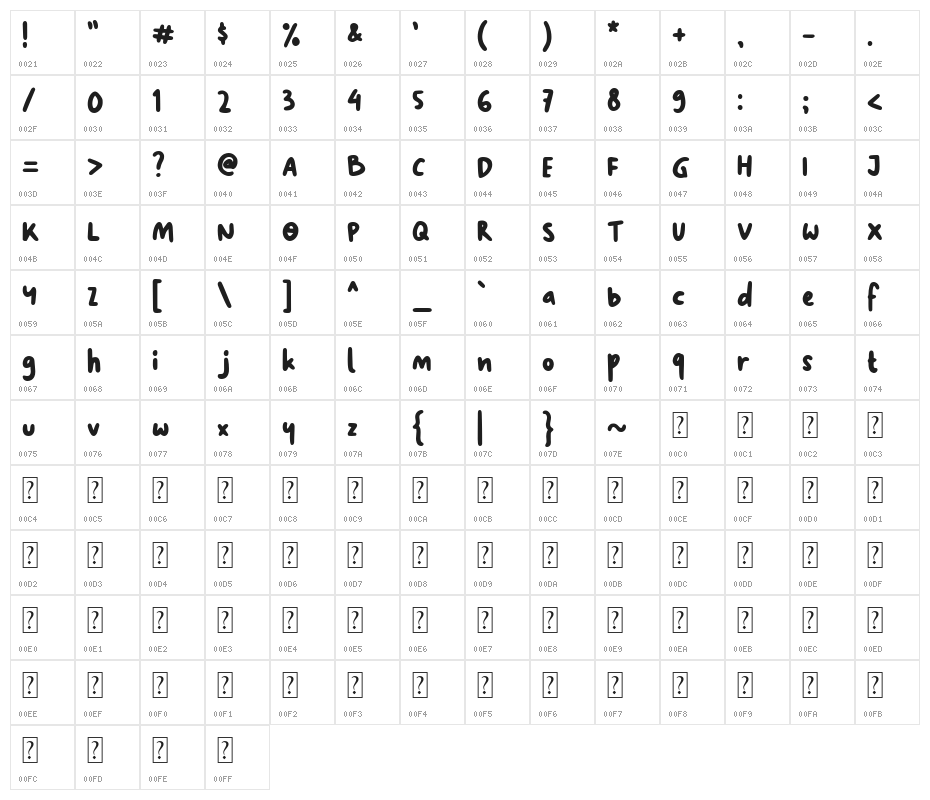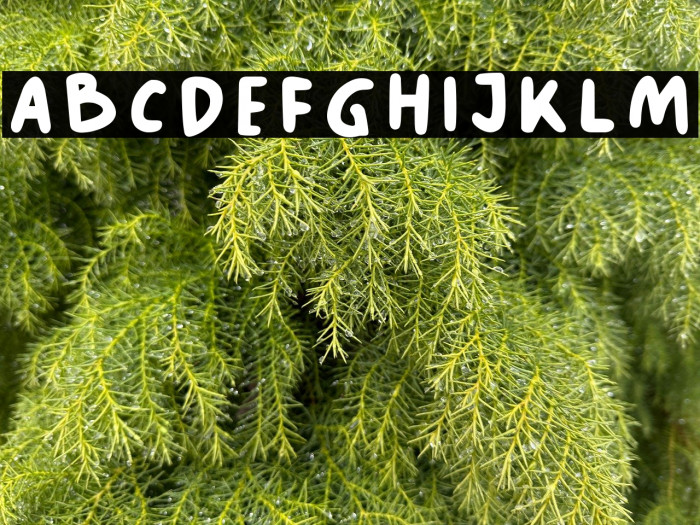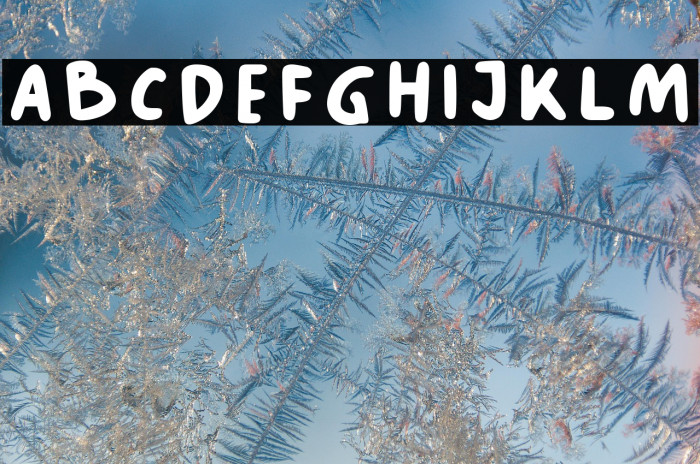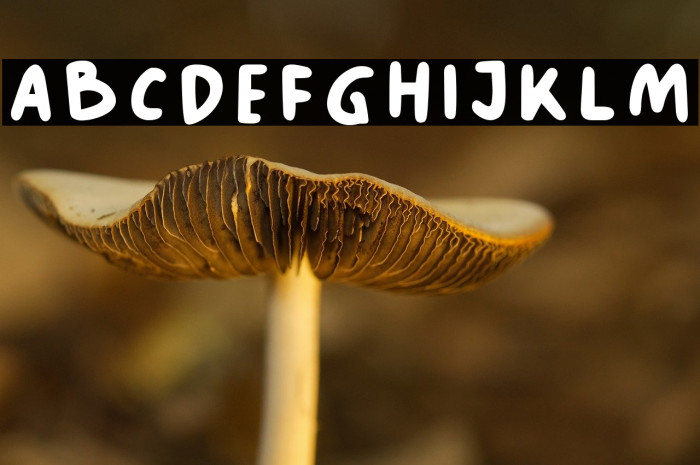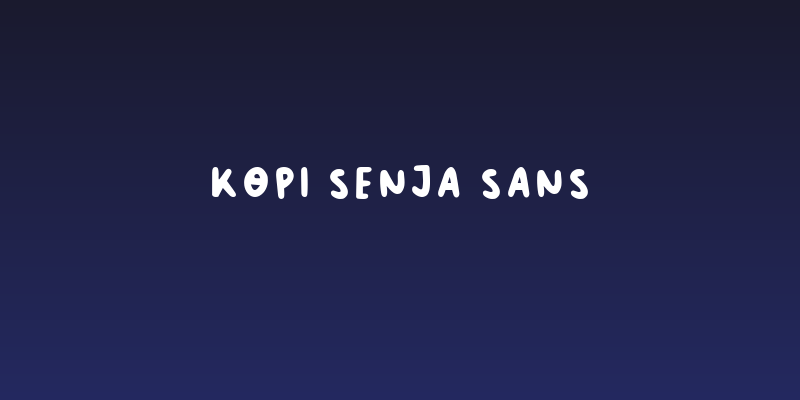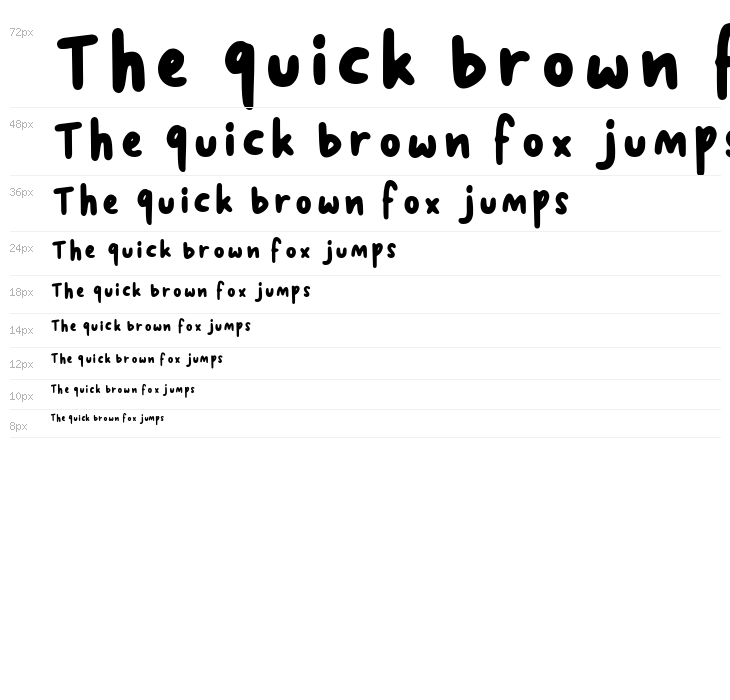
Kopi Senja Sans Font
Kopi Senja Sans Description
This font features a playful and casual handwritten style, characterized by its rounded and slightly irregular letterforms. The strokes are thick and consistent, giving it a bold appearance. The letters have a friendly and approachable feel, making it suitable for informal and creative projects. The font maintains a uniform weight throughout, with a slight tilt that adds to its dynamic and lively nature. The character spacing is normal, ensuring readability while preserving its whimsical charm. The numerals and special characters are designed to match the overall style, providing a cohesive look across all elements.
| Proposed Projects | Ideal for children's books, greeting cards, playful branding, and social media graphics. |